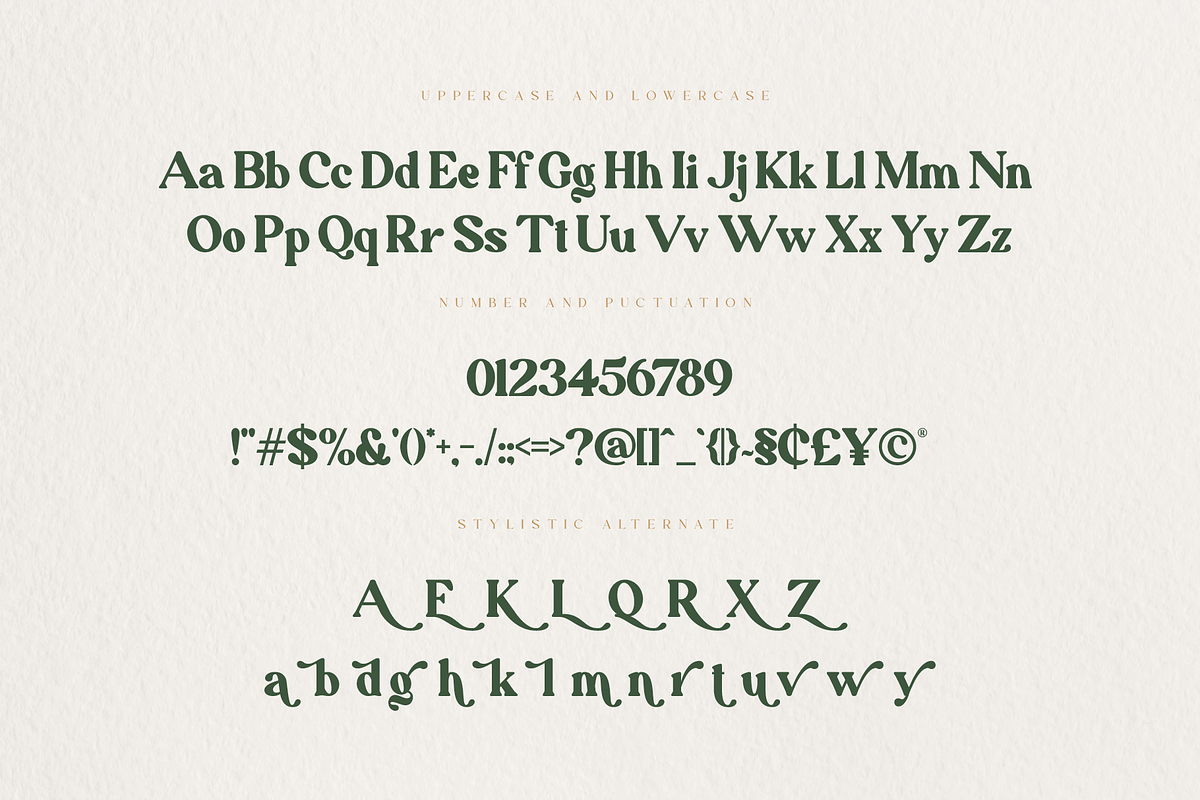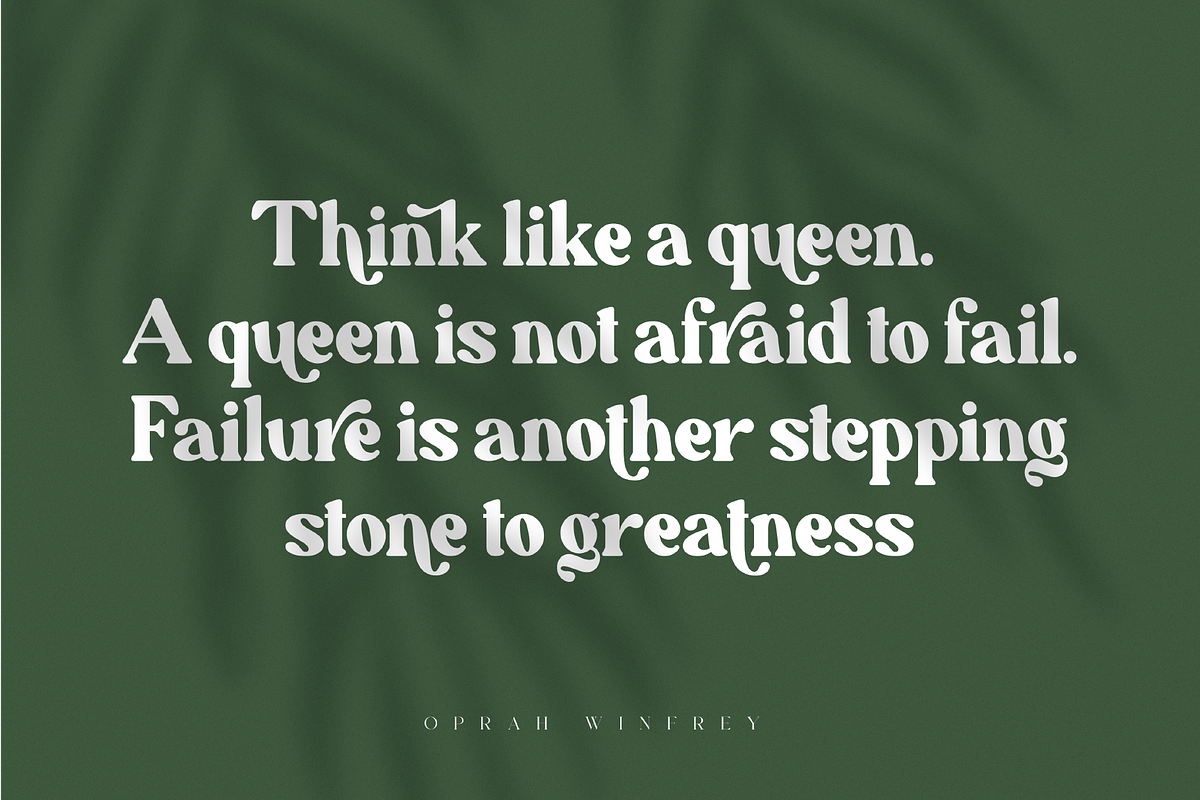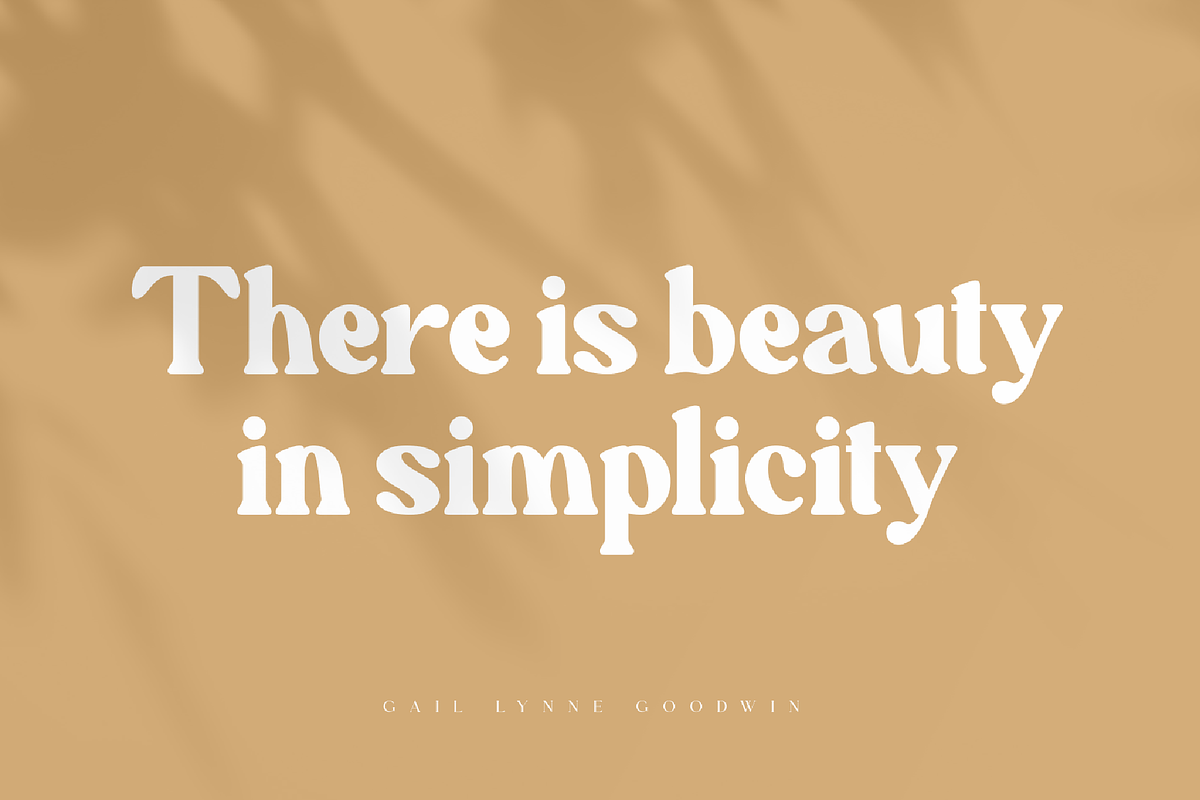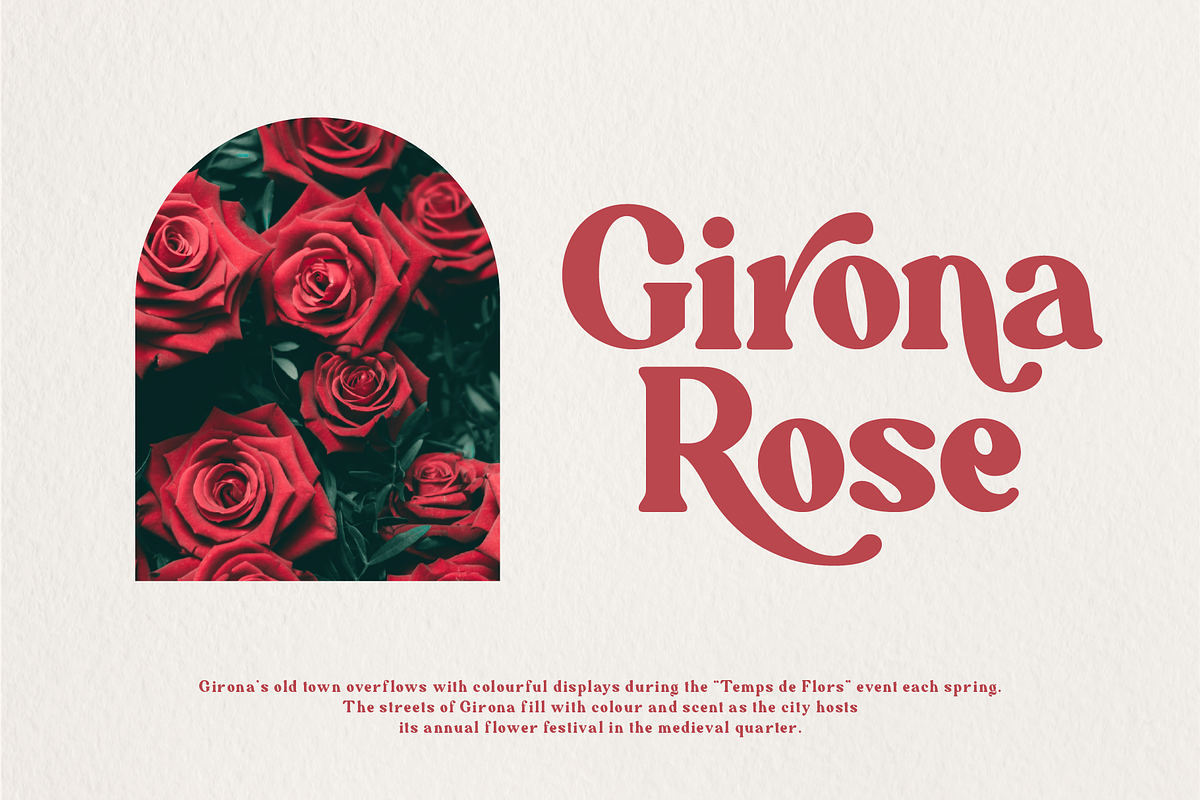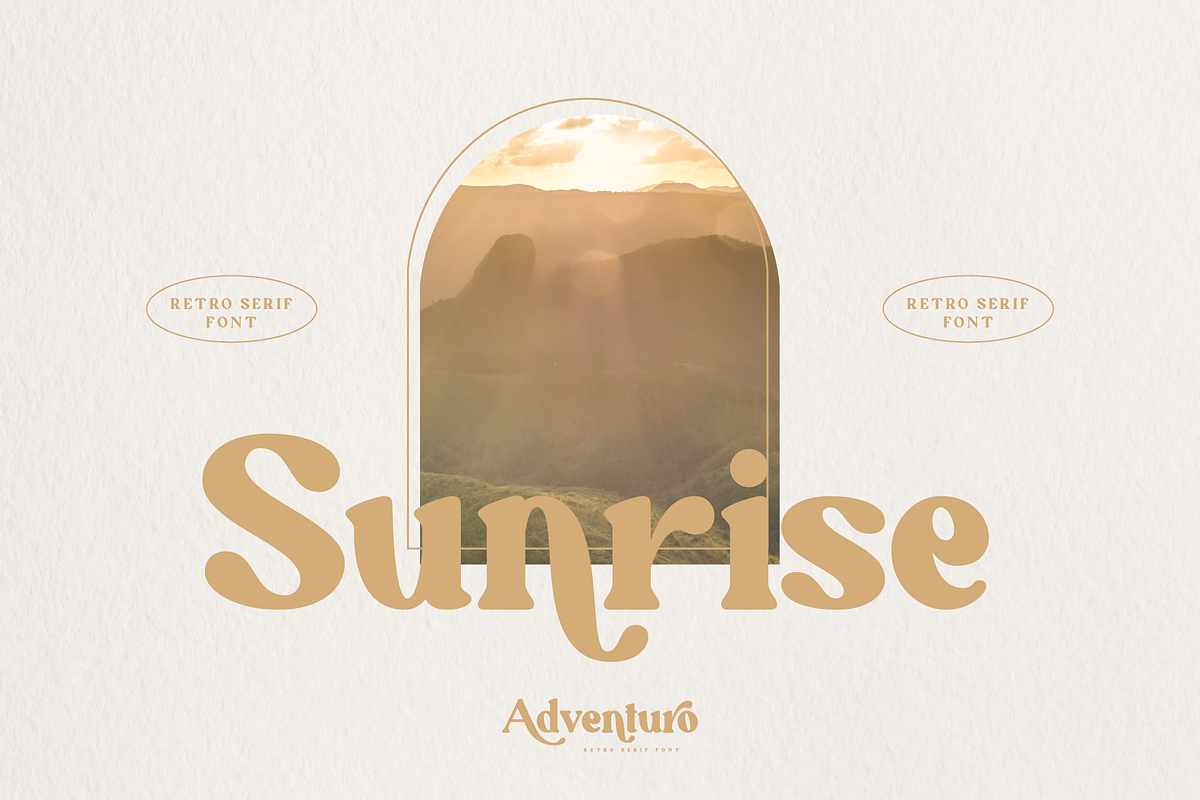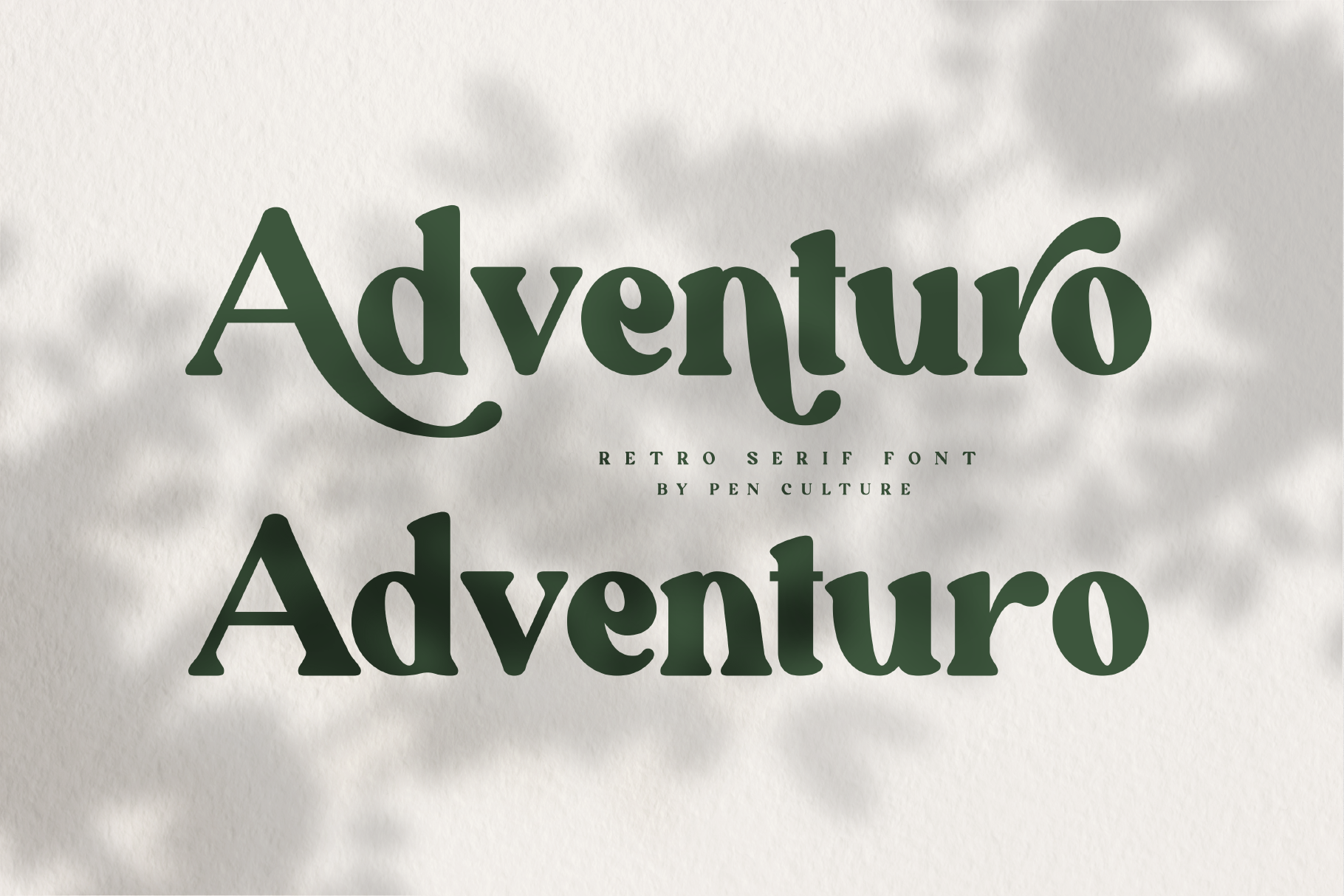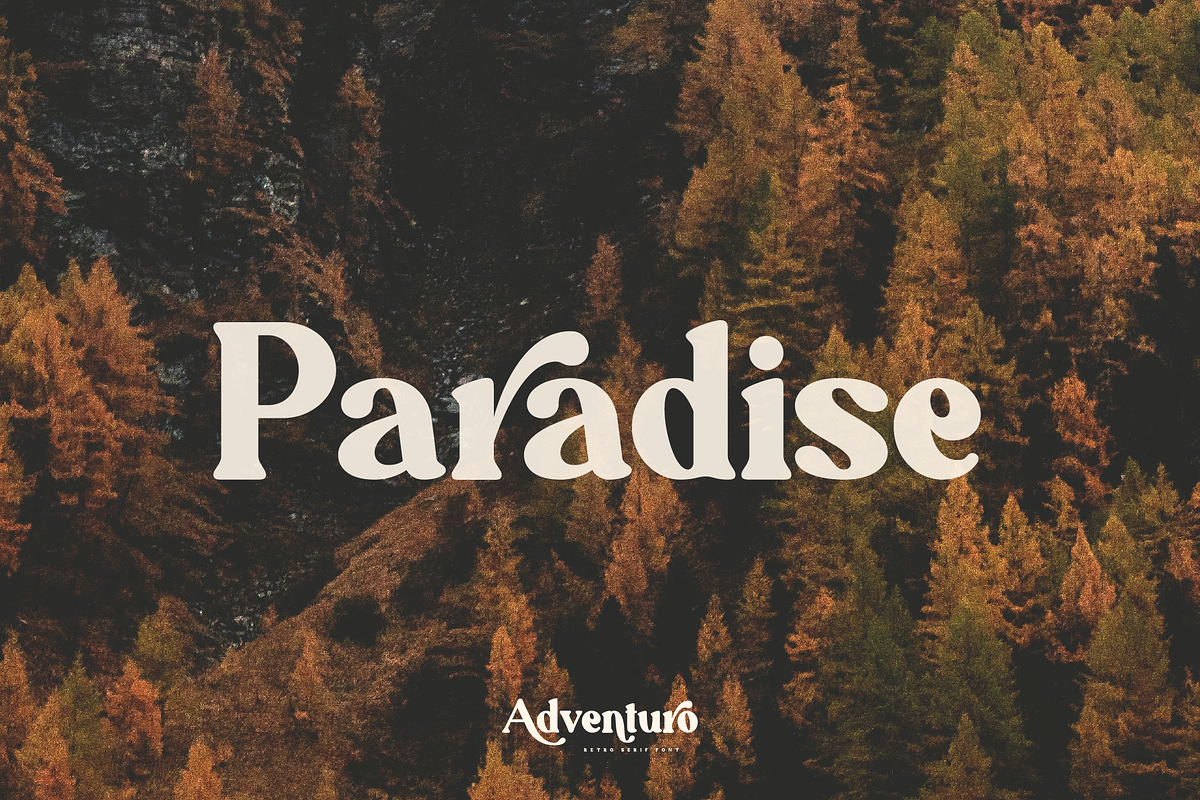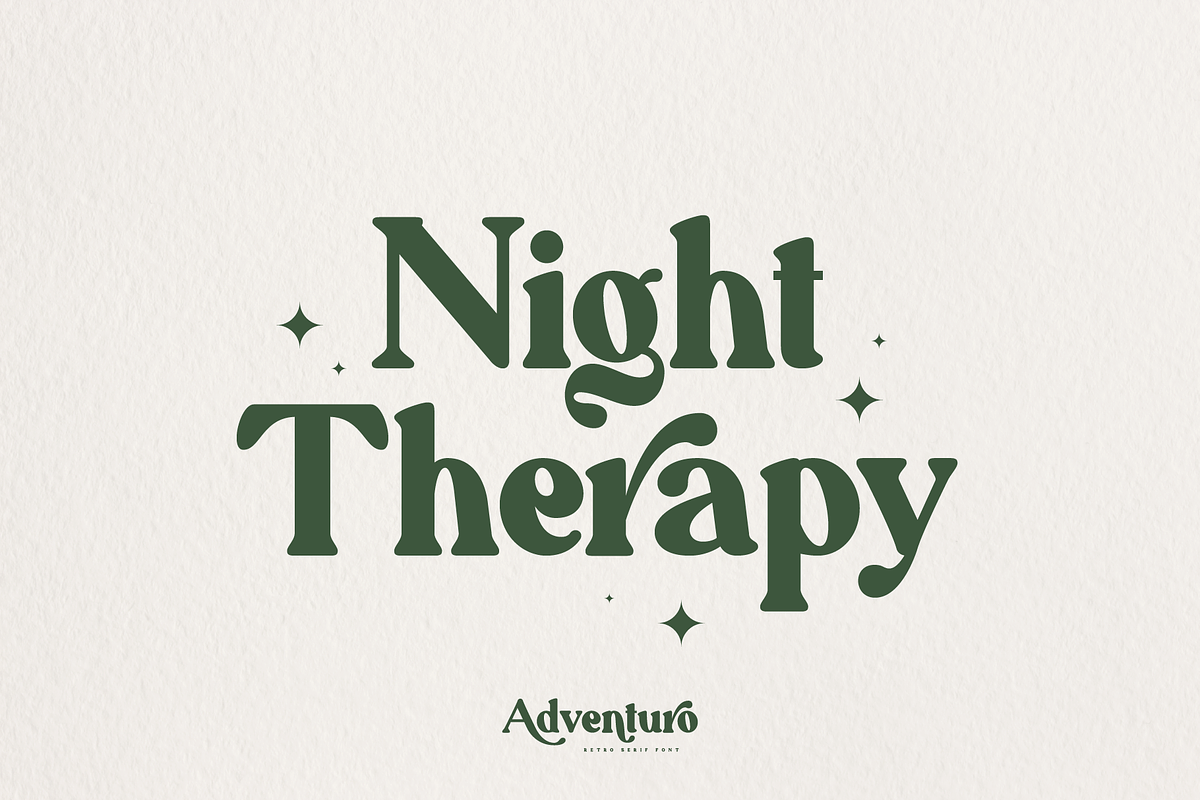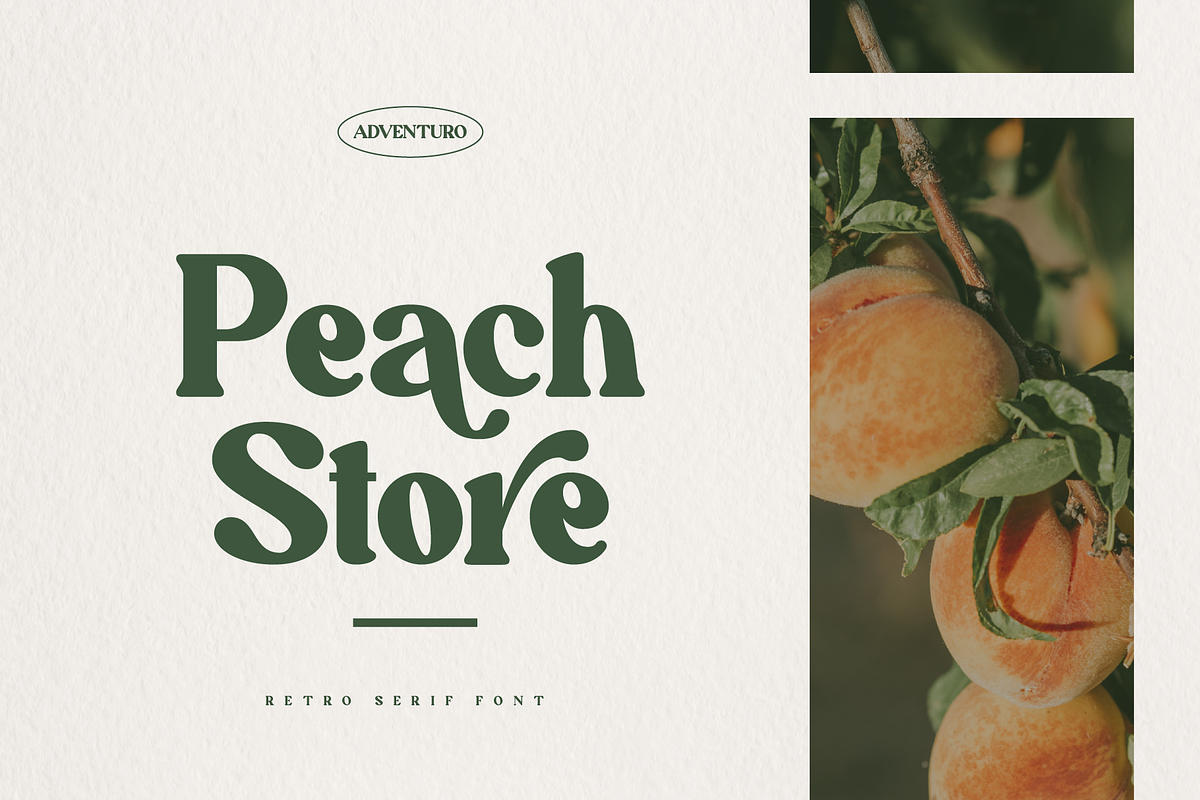
Adventuro – Retro Serif Font
Proudly present ”Adventuro – Retro Serif Font”
Adventuro is retro serif font. this font has a retro look also has a modern feel. This font has more than 20 alternates that will help you in project design such as branding, logos, packaging, magazine imagery, posters and many more.
- Stylistic alternate